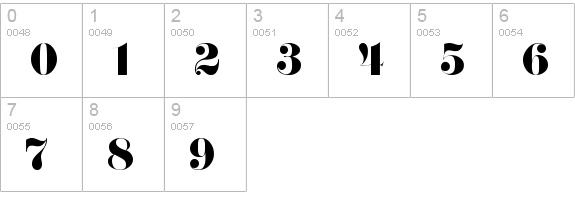
Florence-Normal is the standard, neutral variant in the Florence typeface family \xE2\x80\x94 well suited to general body text, paragraphs, and standard typographic work.
Florence-Normal font is a unique and elegant typeface that exudes sophistication and style. Its clean lines and classic design make it a versatile choice for a wide range of design projects. With its timeless appeal, Florence-Normal font is sure to add a touch of class to any design. The best part? Florence-Normal font is available for free download at FontsMarket.com! This means that you can easily access this beautiful font and use it in your projects without any cost. Whether you're working on a branding project, a poster design, or any other creative endeavor, Florence-Normal font is a fantastic choice that will help your work stand out. Don't miss out on the opportunity to enhance your designs with the elegance of Florence-Normal font. Download it for free today and elevate your projects to the next level!